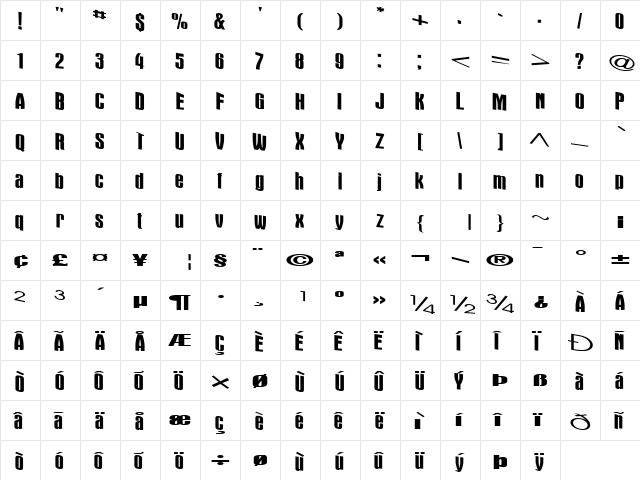
DamselWalkFont71 Regular
Design Context for DamselWalkFont71 Typeface
DamselWalkFont71 offers clean, dependable letterforms without strong stylistic allegiance, making it a practical choice for designers who need flexibility.
Pro Tip: Use DamselWalkFont71 in both headline and body roles to test its range before committing to a single application.